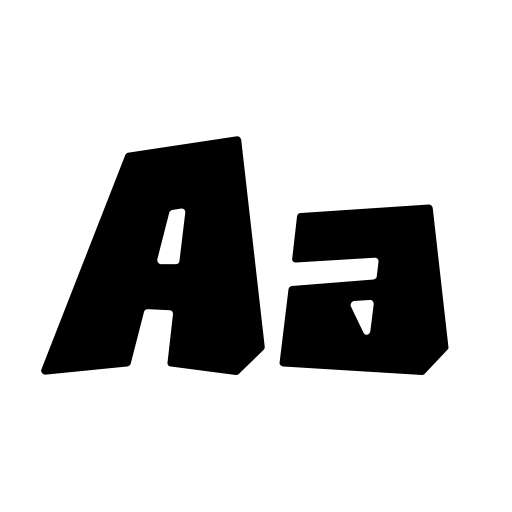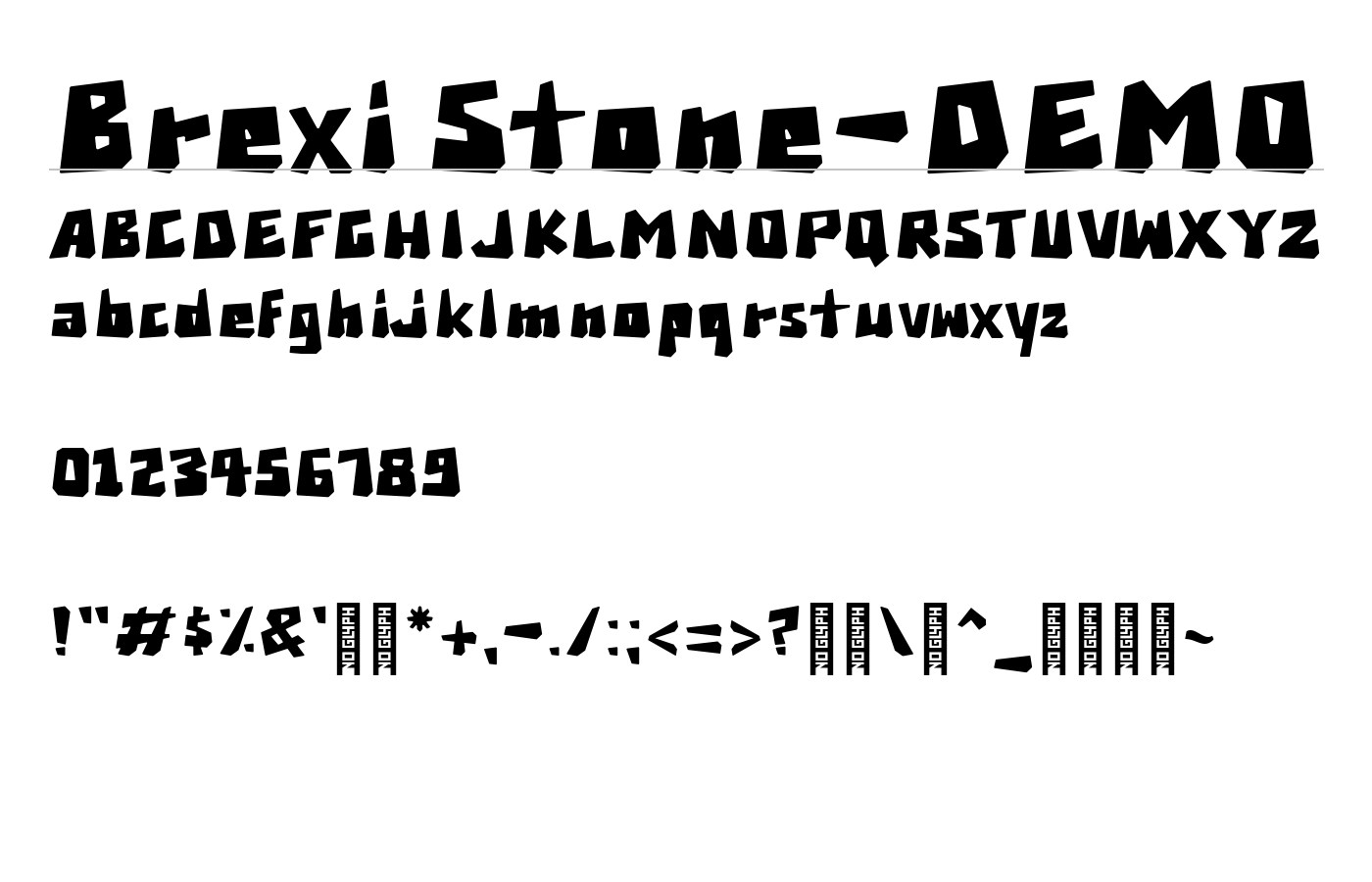
Brexi Stone-DEMO is a bold, quirky sans serif font with an irregular, hand-crafted feel that combines playful angles and uneven shapes. Its strong weight and condensed forms give it a distinctive, energetic personality ideal for dynamic headlines, creative branding, and eye-catching posters. This font works well in designs that seek a fun, informal vibe with a bit of attitude and originality.
Brexi Stone-DEMO Font